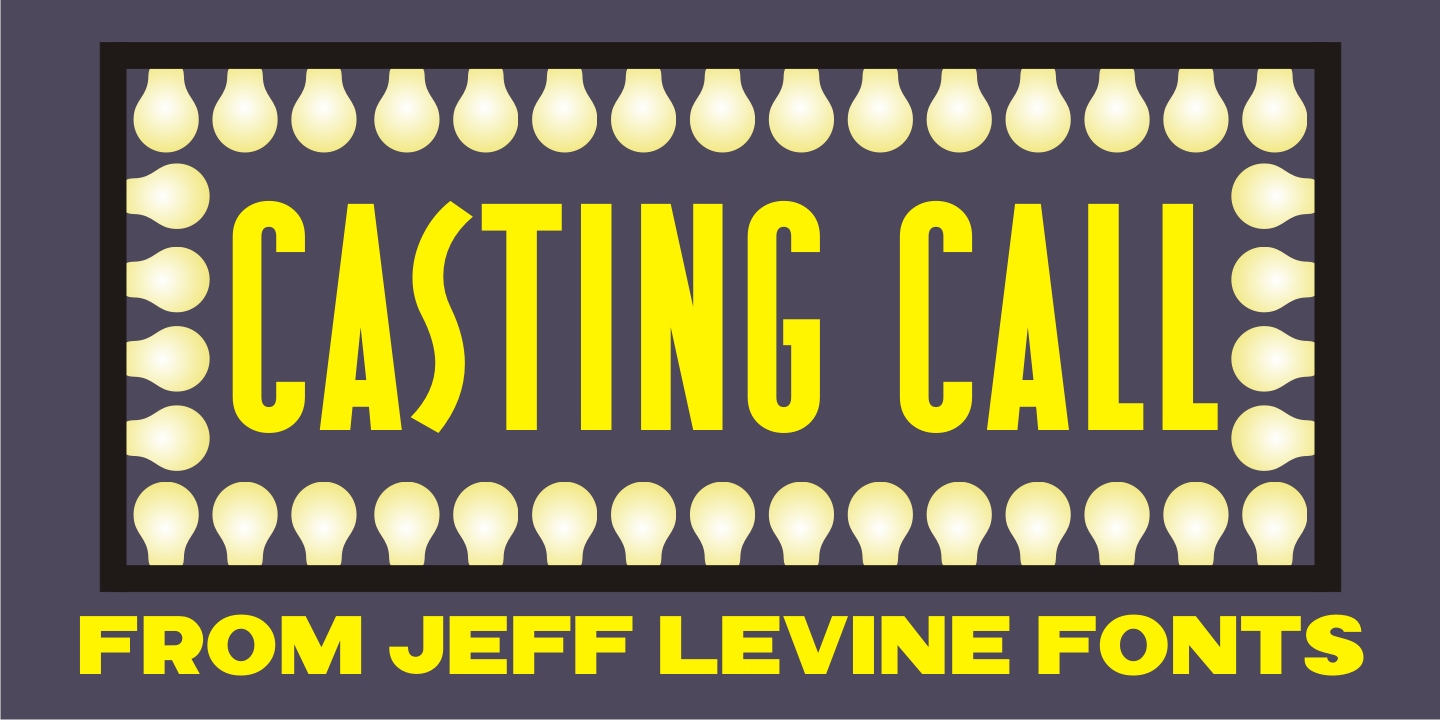
Casting Call JNL Font is ideal for theater production notices, film industry communications, acting agency materials, entertainment industry announcements, Hollywood talent agencies, Broadway audition postings, movie production companies, television casting directors, dramatic arts schools, entertainment trade publications, showbiz networking events, and professional acting career resources.
This font is exciting because it captures the urgent excitement and professional intensity of Hollywood's talent search process, featuring boldly theatrical letterforms that pulse with the same anticipatory energy and industry authority found on casting director's desks where dreams are made and careers are launched with a single audition notice that could change an actor's life forever. The dramatically professional character design embodies both the business-like efficiency of entertainment industry communications and the underlying glamour of show business opportunities, creating typography that feels both seriously professional and thrillingly aspirational. Each letter radiates the kind of industry credibility and star-making potential that transforms ordinary text into career-defining announcements that speak directly to performers' deepest ambitions.
The Casting Call JNL Font family includes regular and bold weights with complete character sets featuring industry-standard numerals, professional punctuation marks, and decorative elements inspired by Hollywood signage, entertainment industry graphics, and theatrical announcement designs. Advanced versions may offer additional stylistic variants with enhanced entertainment industry effects, alternate characters that reflect traditional casting notice formatting, and ornamental elements that celebrate the excitement and professionalism of the entertainment talent industry.
Whether you're developing entertainment industry branding, creating professional casting materials, or designing showbiz communication content, Casting Call JNL Font Free Download provides the industry authority and professional excitement your project needs to communicate effectively within the competitive world of entertainment talent acquisition and professional show business. This typeface transforms ordinary text into industry-standard announcements that carry the weight of professional opportunity and the excitement of potential stardom. The font's industry character makes it essential for agencies and organizations operating within the entertainment talent marketplace. Entertainment industry professionals and aspiring performers will appreciate how this font brings authentic Hollywood credibility to their work with its genuinely professional and industry-appropriate character that opens doors in show business.